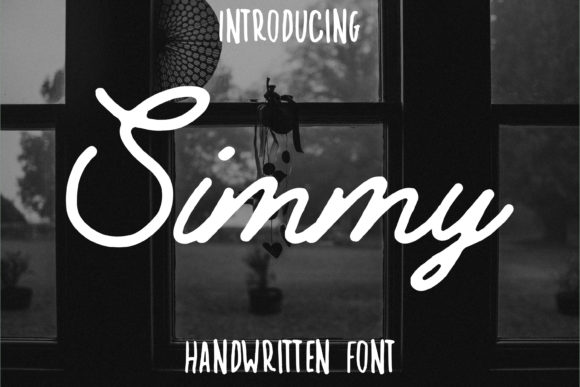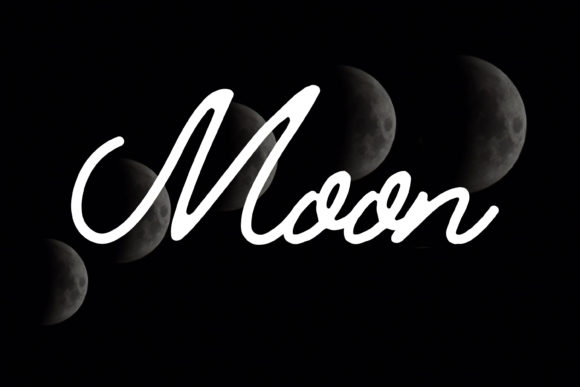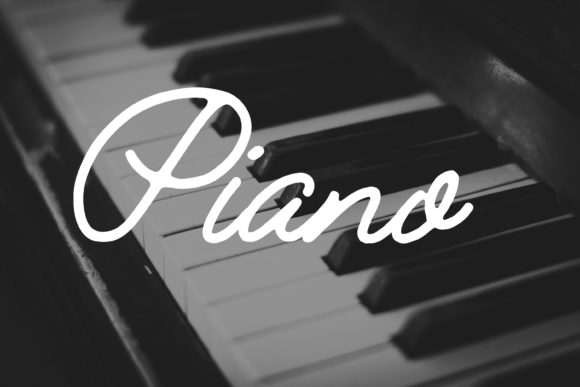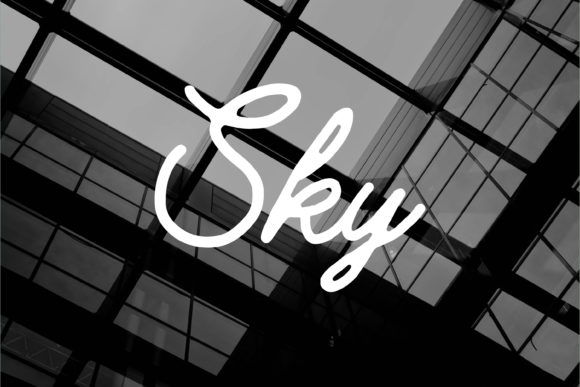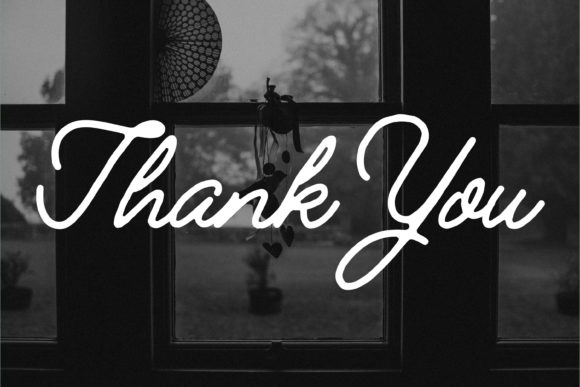
Simmy Font
About Simmy Font
Simmy is a charming and vintage-styled handwritten font, crafted with meticulous care to ensure it delivers the desired outcomes. With its sweet and nostalgic aesthetic, this font is versatile and well-suited for a variety of products, adapting to different needs with grace and style.
The vintage charm of Simmy is immediately apparent in its design, evoking a sense of timeless elegance. Its handwritten style adds a personal and authentic touch, making it suitable for a diverse range of products. Whether applied to branding, packaging, invitations, or any creative project, Simmy brings a unique and nostalgic flair.
The careful craftsmanship of Simmy becomes evident in its ability to capture a vintage essence while maintaining readability and adaptability. The font serves as a reliable choice for conveying a sense of warmth and character in diverse design contexts.
Simmy’s versatility allows it to be seamlessly integrated into various products, aligning itself with the specific needs of each project. Its sweet and vintage aesthetics make it suitable for creating a range of visually appealing outcomes, ensuring that it can effectively communicate the desired message or evoke a particular sentiment.
In conclusion, Simmy is more than just a font; it’s a vintage-inspired design tool meticulously crafted to bring sweetness and character to your projects. Whether you’re working on products that demand a touch of nostalgia or aiming for a charming and handwritten aesthetic, Simmy is poised to fulfill your creative needs with its unique blend of vintage style and careful design.